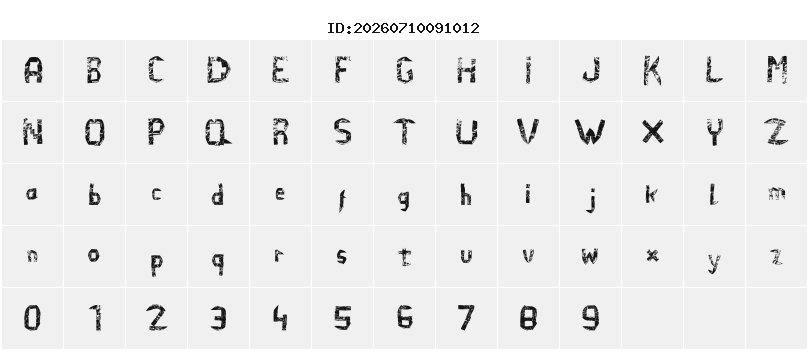
• Font Name: El Efi de Arena
• Designer: JosŽ Ram—n Fuentes y David Gonzalez Guillot
• Manufacturer: Arena Media Comunication
El Efi de Arena.ttf is a modern, elegant sans-serif font designed for ultimate readability and visual harmony. Perfect for branding, headlines, web design, and print materials.